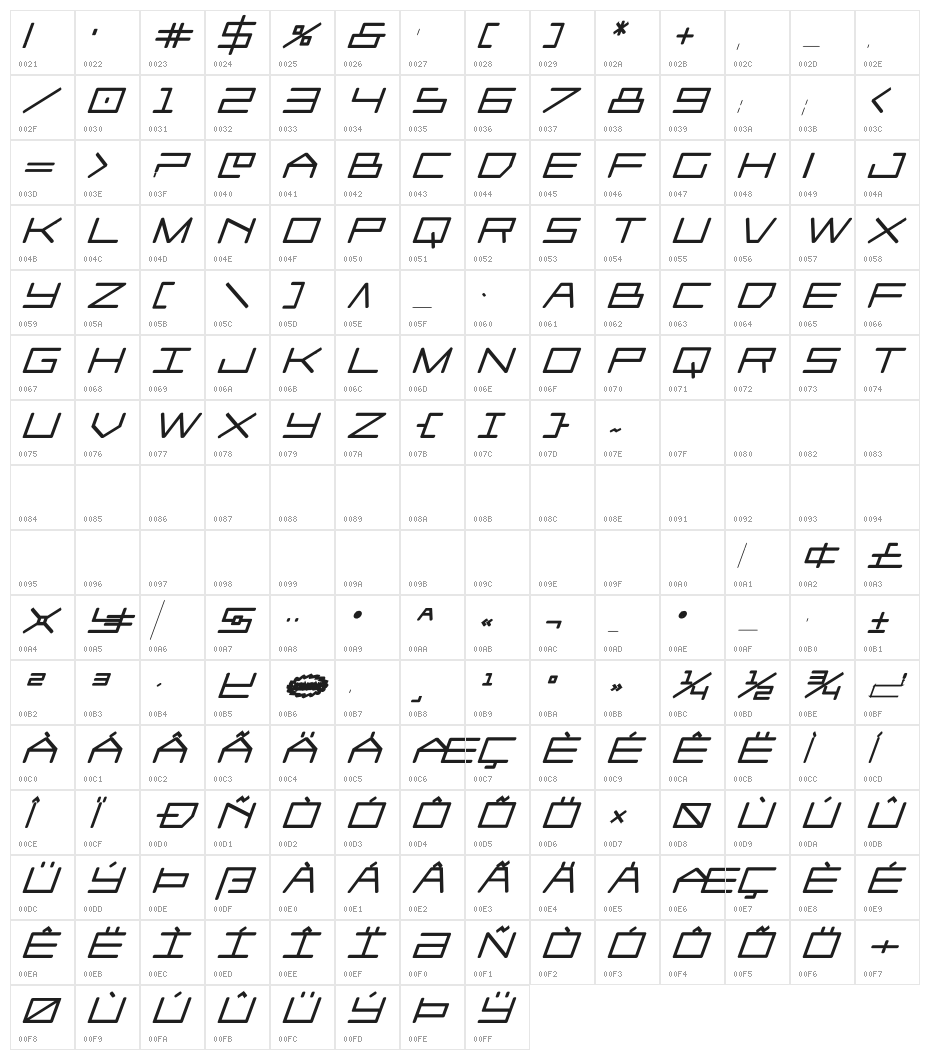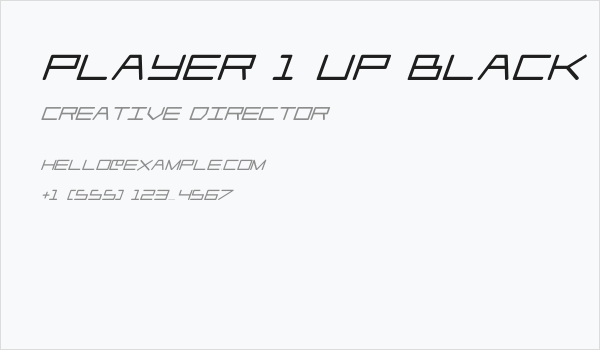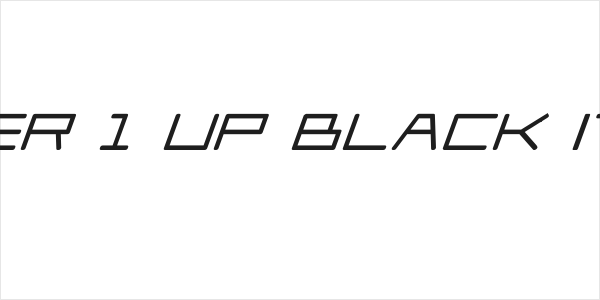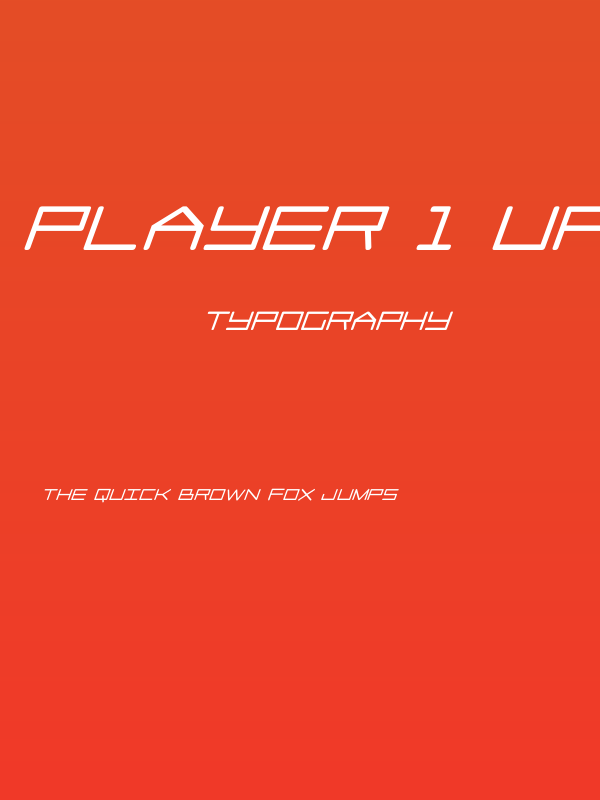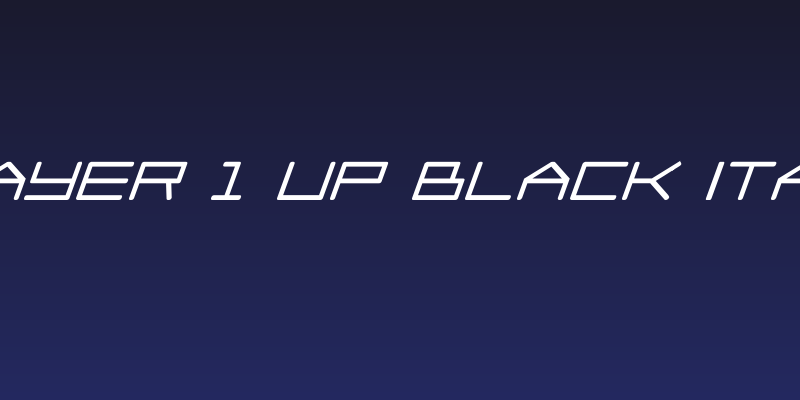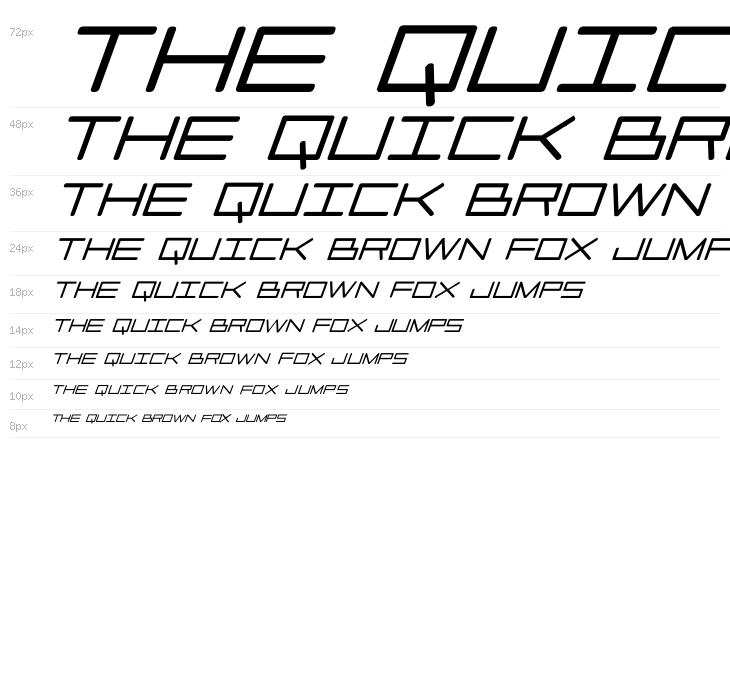
Player 1 Up Black Italic Font
Player 1 Up Black Italic Description
This font features a futuristic and angular design, characterized by its sharp edges and geometric shapes. The letters are slightly italicized, giving a sense of motion and dynamism. The uppercase and lowercase letters maintain a consistent style, with a uniform stroke width that enhances readability. The numerals and special characters follow the same design principles, ensuring a cohesive look across all characters. This font is ideal for projects that require a modern and tech-inspired aesthetic, such as video game titles, technology branding, or sci-fi themed designs.
| Proposed Projects | Ideal for video game titles, technology branding, and sci-fi themed designs. |